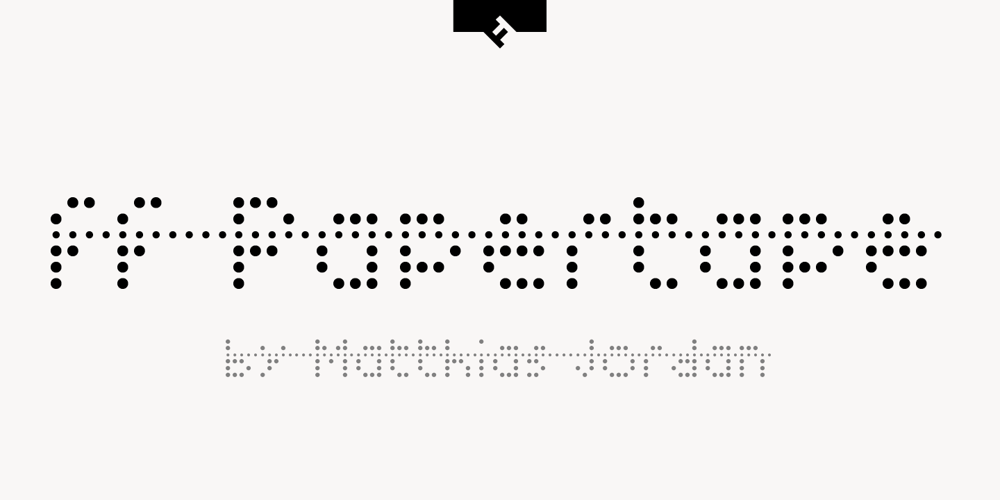
FF Papertape Font Family was designed by Matthias Jordan and published by FontFont. FF Papertape contains 4 styles and family package options. German type designer Matthias Jordan created this display FontFont in 2000. The family contains 4 weights and is ideally suited for music and nightlife, poster and billboards as well as software and gaming. It comes with proportional lining, tabular lining, and tabular oldstyle figures.